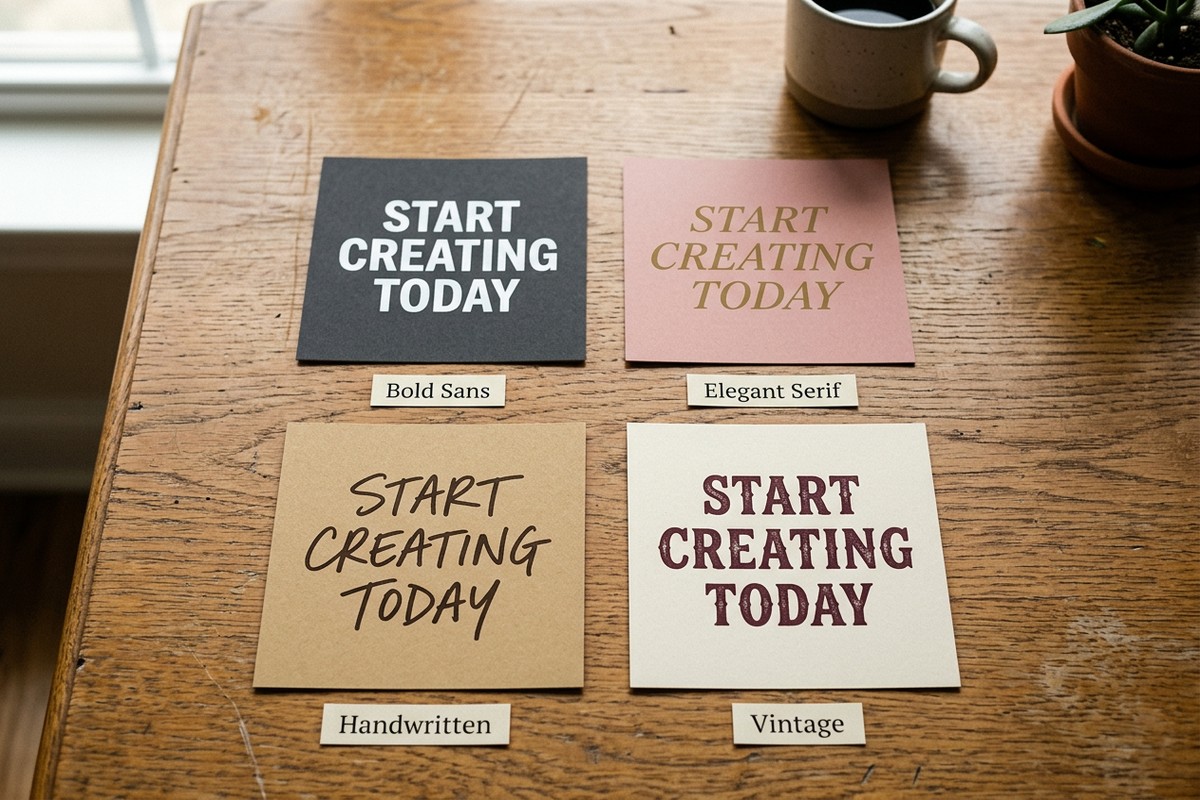
How to Choose the Right Font for Your Instagram Posts
Your font says more than your words do.
That might sound dramatic, but think about it. Before anyone reads your caption, before they process your message, they see the font. They feel it. A bold sans-serif screams confidence. A flowing script whispers elegance. A chunky hand-drawn typeface says fun and approachable.
If you’re posting on Instagram and not thinking about your font choice, you’re leaving engagement on the table. Here’s how to pick the right one every time.
Start with the Mood, Not the Font
The biggest mistake people make is browsing fonts randomly until something looks nice. That’s backwards. Instead, start with a question: what feeling do I want this post to create?
Are you announcing a sale? You want something bold and urgent. Sharing a motivational quote? Go for something clean and elegant. Promoting a cozy winter event? A handwritten or rustic style sets the tone.
Once you know the mood, the right font category becomes obvious.
The Four Font Families (and When to Use Each)
Serif fonts
Fonts with small strokes at the ends of letters. Think Playfair Display or Times New Roman. Serifs feel established, trustworthy, and polished. They’re perfect for quotes, educational content, and anything where you want to project authority. Fashion brands, book accounts, and lifestyle influencers love serifs.
Sans-serif fonts
Clean, modern, no extra strokes. Think Montserrat, Helvetica, or Futura. Sans-serifs feel contemporary and readable. They work well for announcements, product promos, business tips, and anything that needs to be processed quickly while scrolling.
Script and handwritten fonts
Flowing, cursive, or hand-drawn. These feel personal, warm, and creative. Great for invitations, personal stories, wedding content, and brands that want to feel approachable. Just make sure they’re readable at small sizes — a script font that looks beautiful on a poster can become illegible on a phone screen.
Display and decorative fonts
Bold, unusual, attention-grabbing. These are your headline fonts. Use them for one or two words max. They stop the scroll but they’re not meant for paragraphs. Perfect for sale announcements, event headers, or adding a punch of personality to a post.
Three Rules That Always Work
Keep it to two fonts max. One for your headline, one for body text. Mixing three or more fonts in a single post almost always looks cluttered. If you’re using Word Swag, the Typomatic engine handles this for you automatically by pairing complementary fonts in every layout.
Contrast is your friend. Pair a bold font with a thin one. A serif headline with a sans-serif subtitle. Contrast creates visual hierarchy, which means people’s eyes go where you want them to go: your main message first, supporting details second.
Test it at thumb size. Before you post, shrink your design down to the size it’ll appear in someone’s feed. Can you still read every word? If not, simplify. Instagram is a mobile-first platform. If your font doesn’t work at small sizes, it doesn’t work.
What About 3D Fonts?
Here’s where things get interesting. Traditional fonts are flat. Every Instagram post uses the same Canva templates, the same Google Fonts, the same look. If you want to stand out, you need something different.